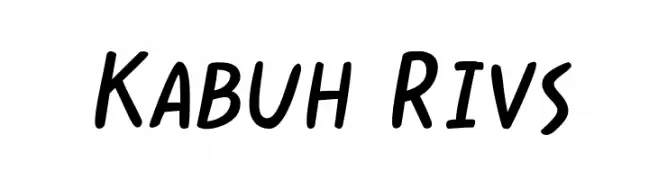
A playful, handwritten-style font with smooth curves and a slightly slanted orientation.
A bold, impactful font with thick, uniform strokes and a slightly condensed appearance.
A bold, italic, and modern font with rounded edges and a slightly condensed style.
A sleek, modern font with clean lines and slightly condensed letterforms.
A playful, handwritten font with thin, slightly uneven strokes and a casual feel.
A playful, hand-drawn font with rounded, slightly irregular letterforms.